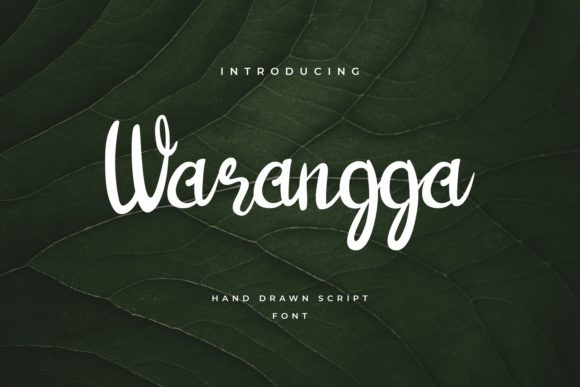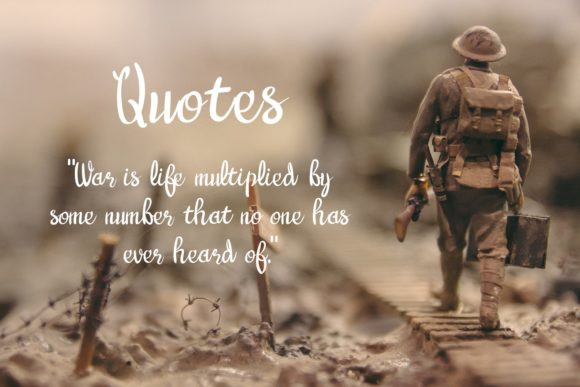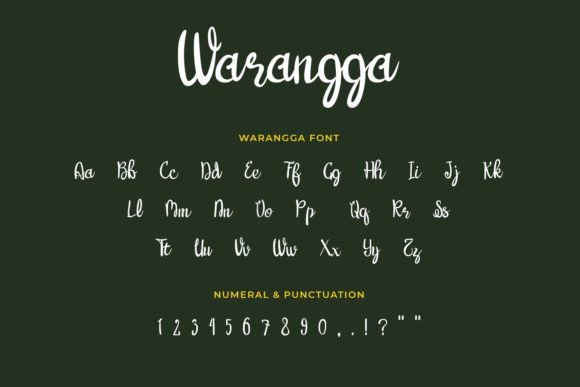
Warangga Font
Warangga is a delicate and elegant handwritten font. Its distinct and well rounded letters make this font a masterpiece. Fall in love with its incredibly versatile style and use it to create spectacular designs!